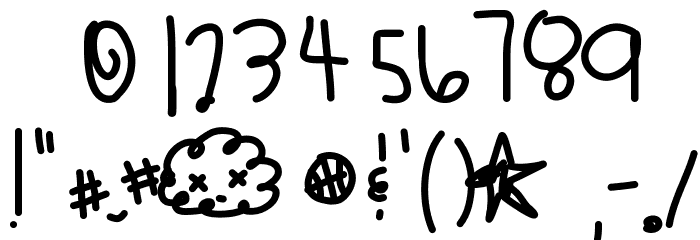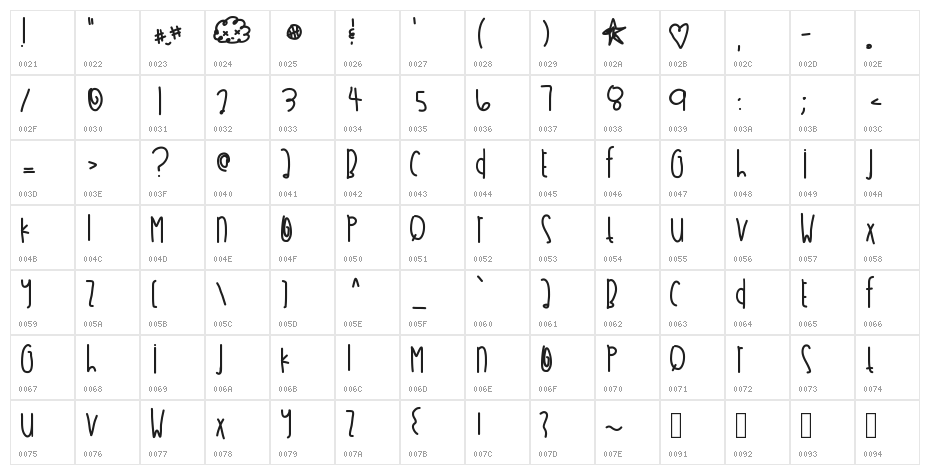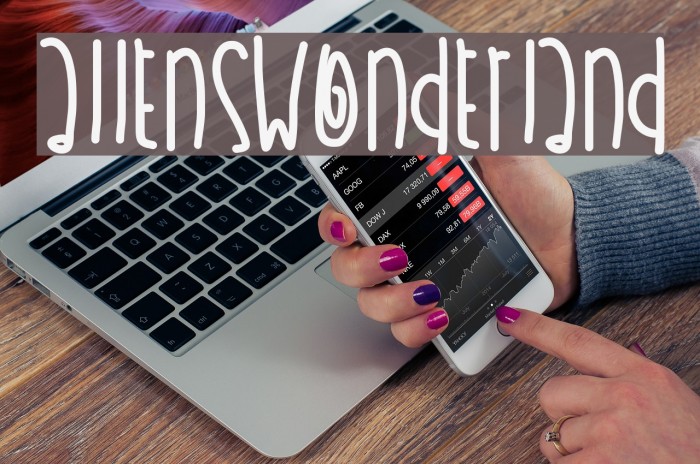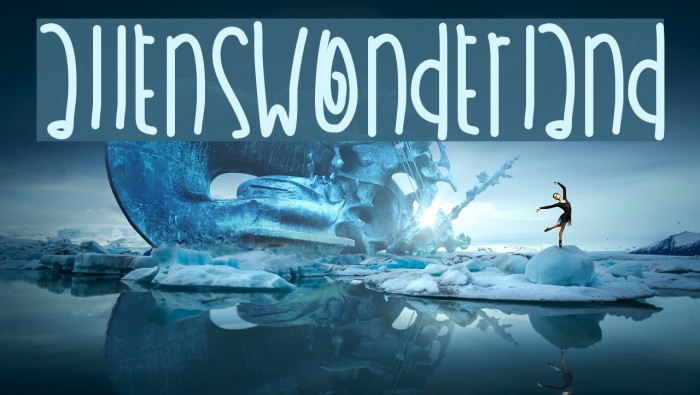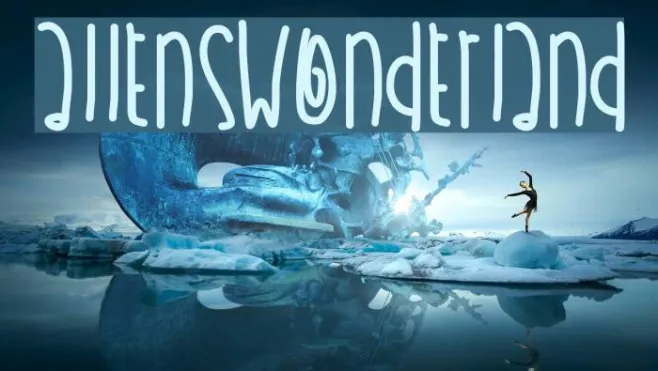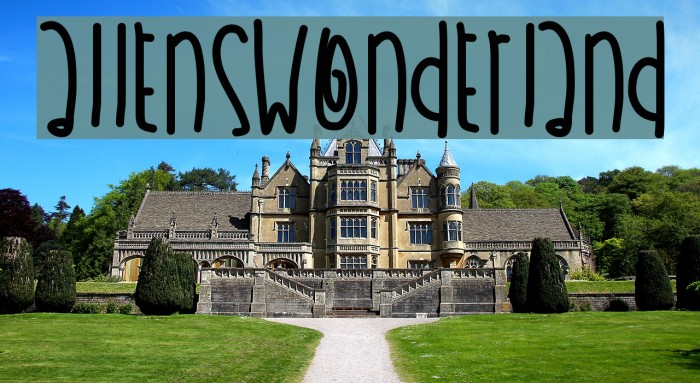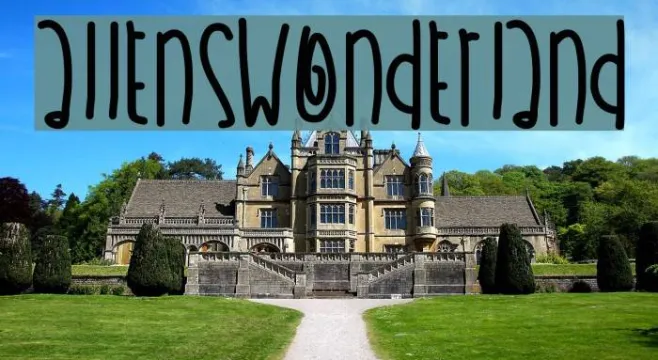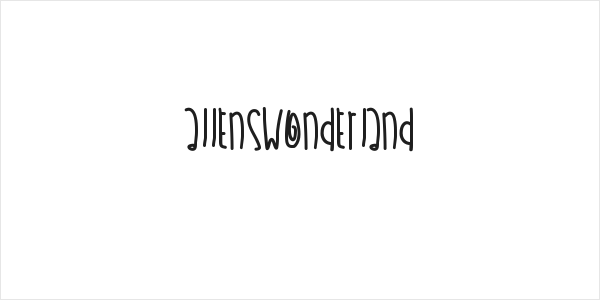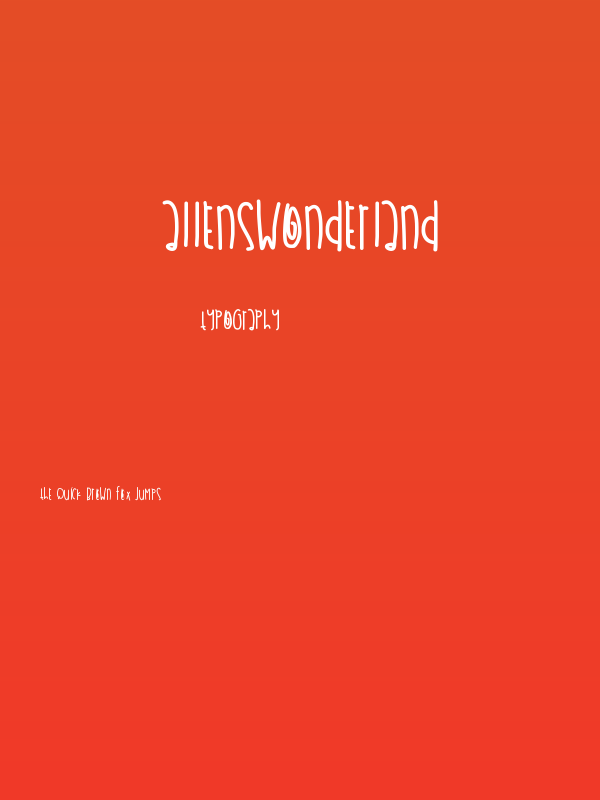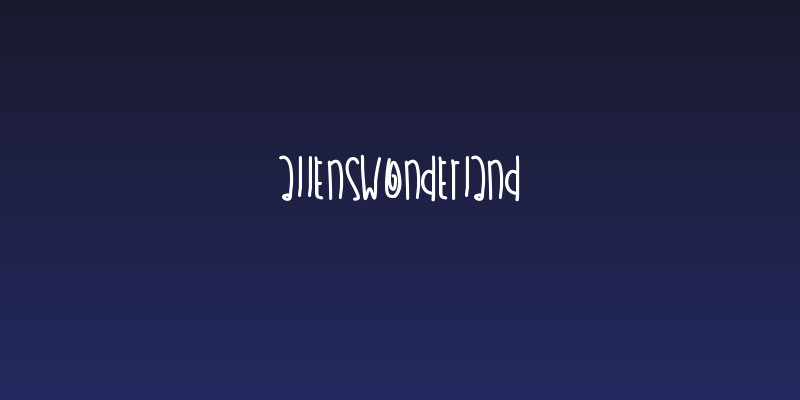
AllensWonderland Font
AllensWonderland Description
This playful and whimsical font features a handwritten style with a unique and quirky character design. The letters are tall and narrow, with a slightly uneven baseline that adds to its charm. The strokes are smooth and rounded, giving it a friendly and approachable feel. The font includes both uppercase and lowercase letters, numbers, and a variety of special characters, each maintaining the same playful aesthetic. Its distinct style makes it stand out, perfect for creative projects that require a touch of fun and personality.
| Overall Style | Whimsical |
| Proposed Projects | Ideal for children's books, greeting cards, playful branding, and creative social media graphics. |